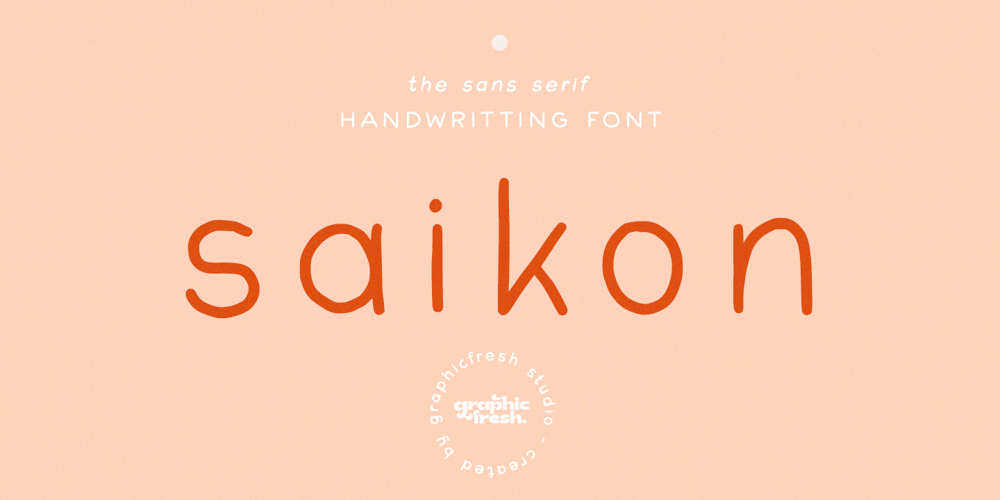
Saikon
Saikon font
Saikon Font Family was designed by Muhammad Husni Haikal and published by Graphicfresh. Saikon contains 4 styles and family package options. Saikon – A Handwritten Sans Serif, every single letter has been carefully crafted to make your text looks beautiful. it’s perfect for logos, name card, magazine layouts, invitations, headers, or even large-scale artwork.